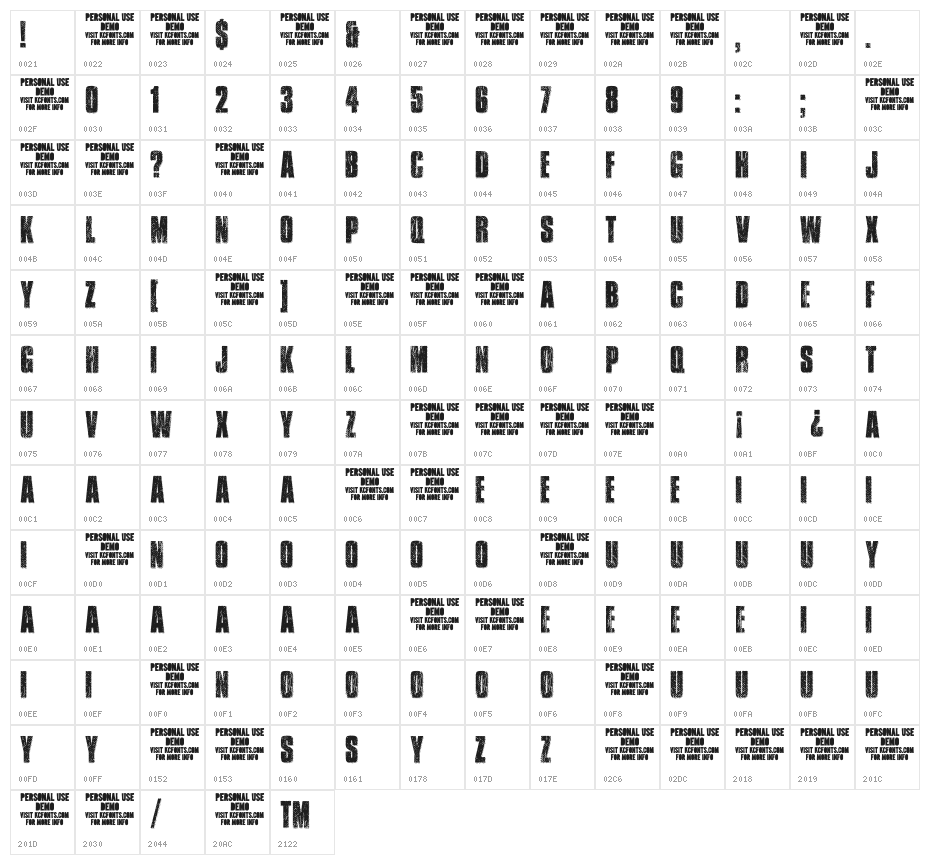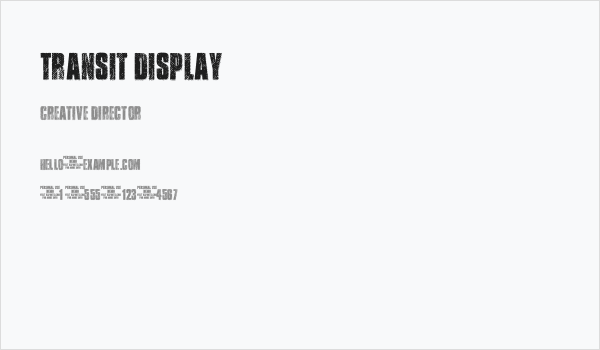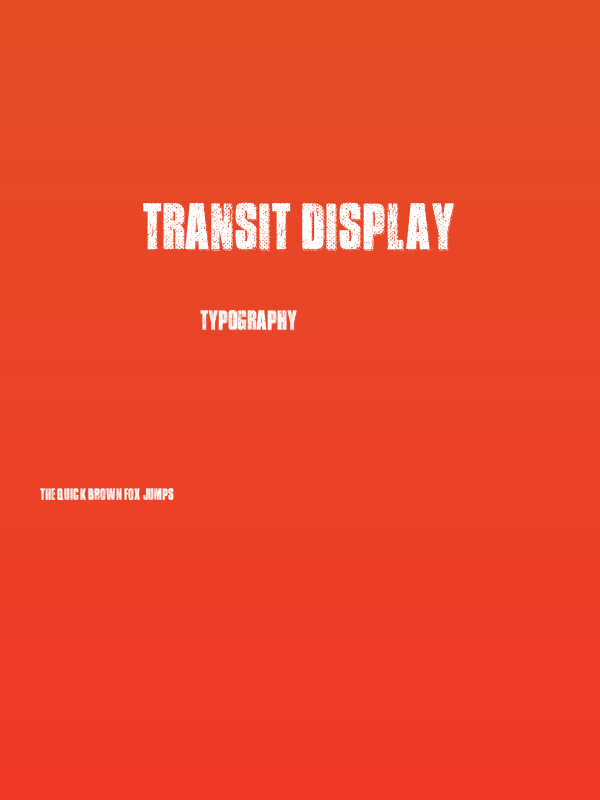
Transit Display Font
Transit Display Description
This font features a bold, distressed style with a textured appearance that gives it a rugged, worn look. The characters are uppercase and numerals, each with a unique, weathered texture that adds a sense of depth and character. The font's bold weight and high contrast make it stand out, while the rough edges and irregularities in the texture provide a vintage, industrial feel. This style is reminiscent of old signage or posters, making it ideal for projects that require a strong, impactful visual statement.
| Overall Style | Vintage, Industrial |
| Proposed Projects | Ideal for posters, album covers, branding projects, and any design that requires a vintage or industrial aesthetic. |